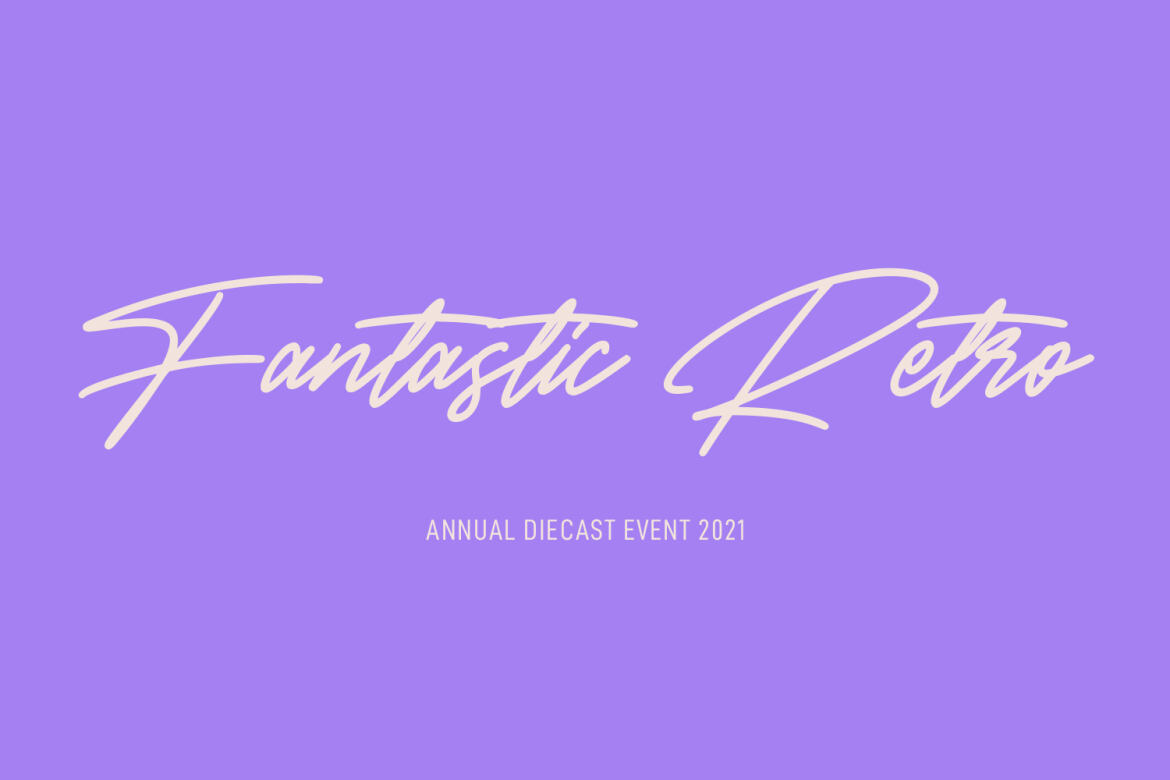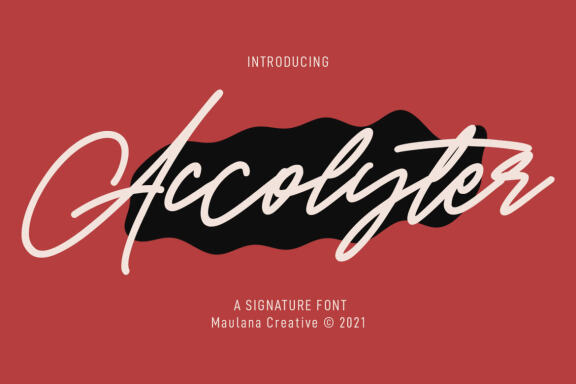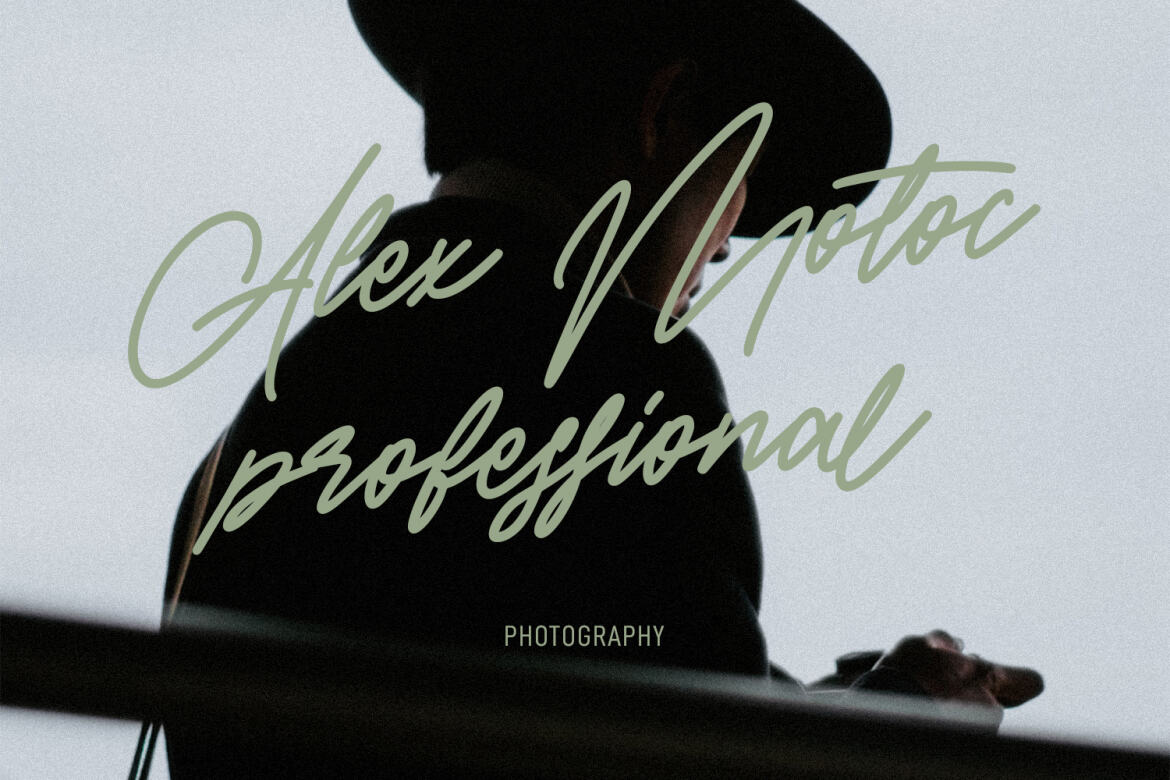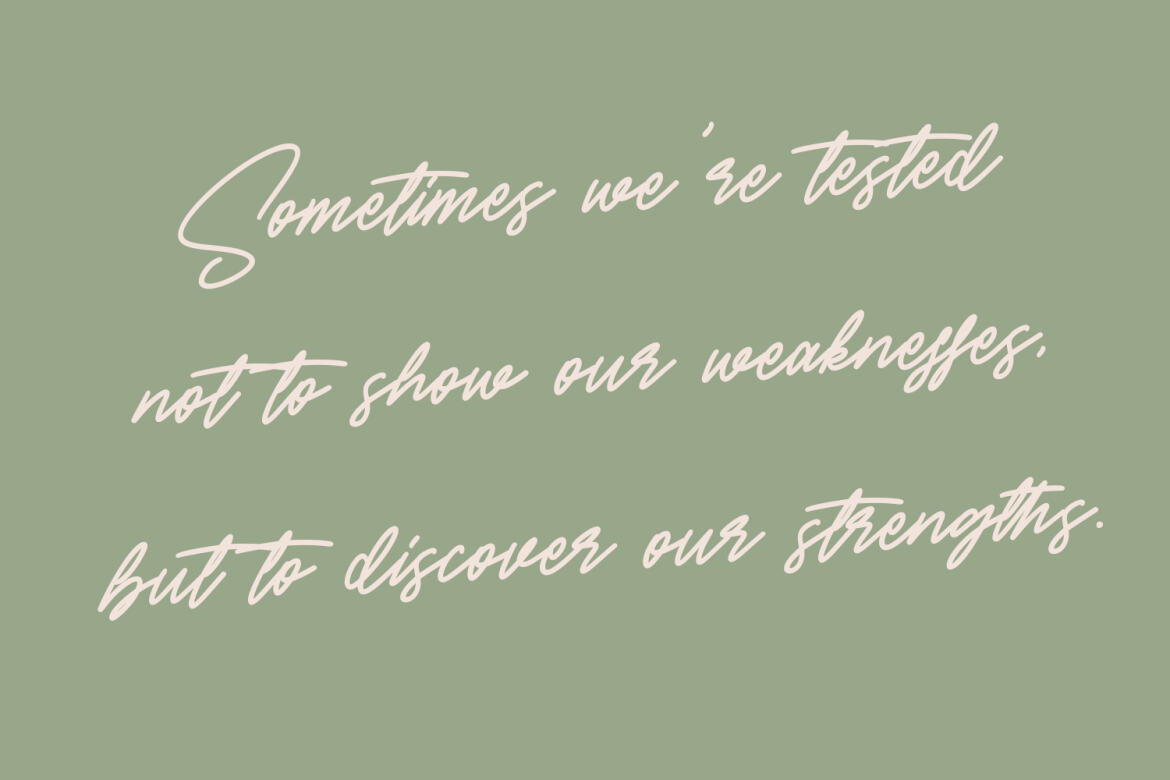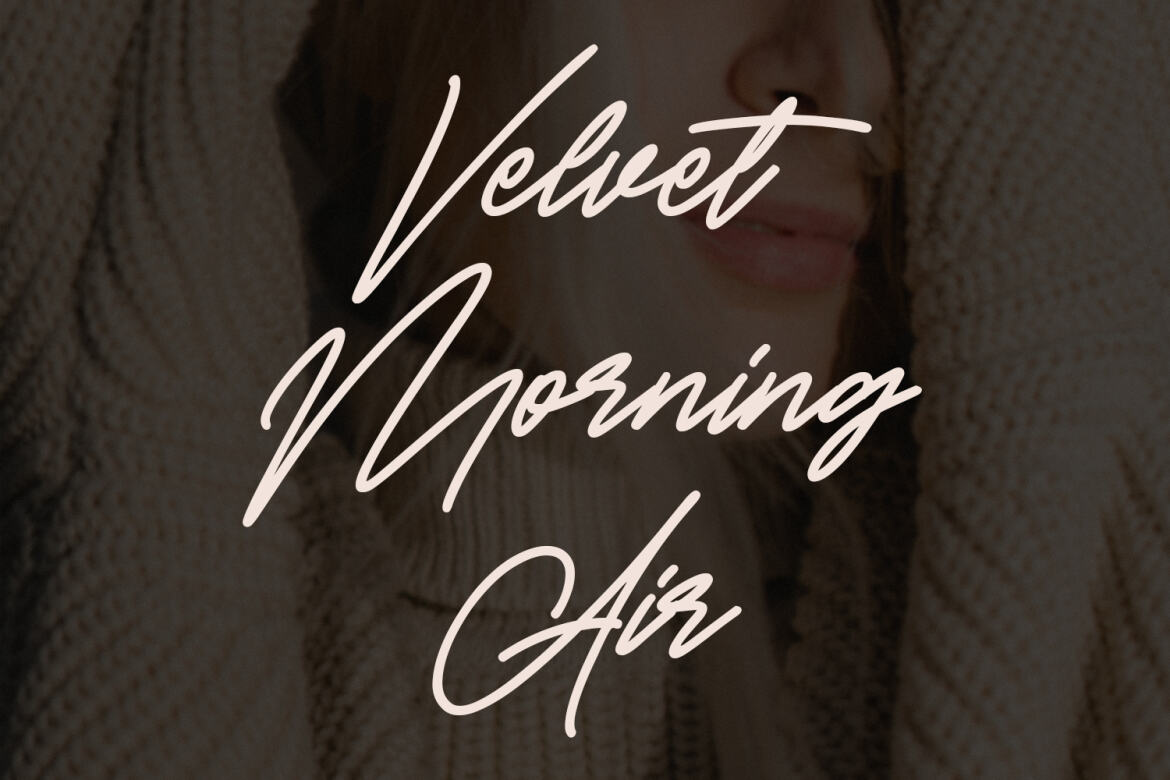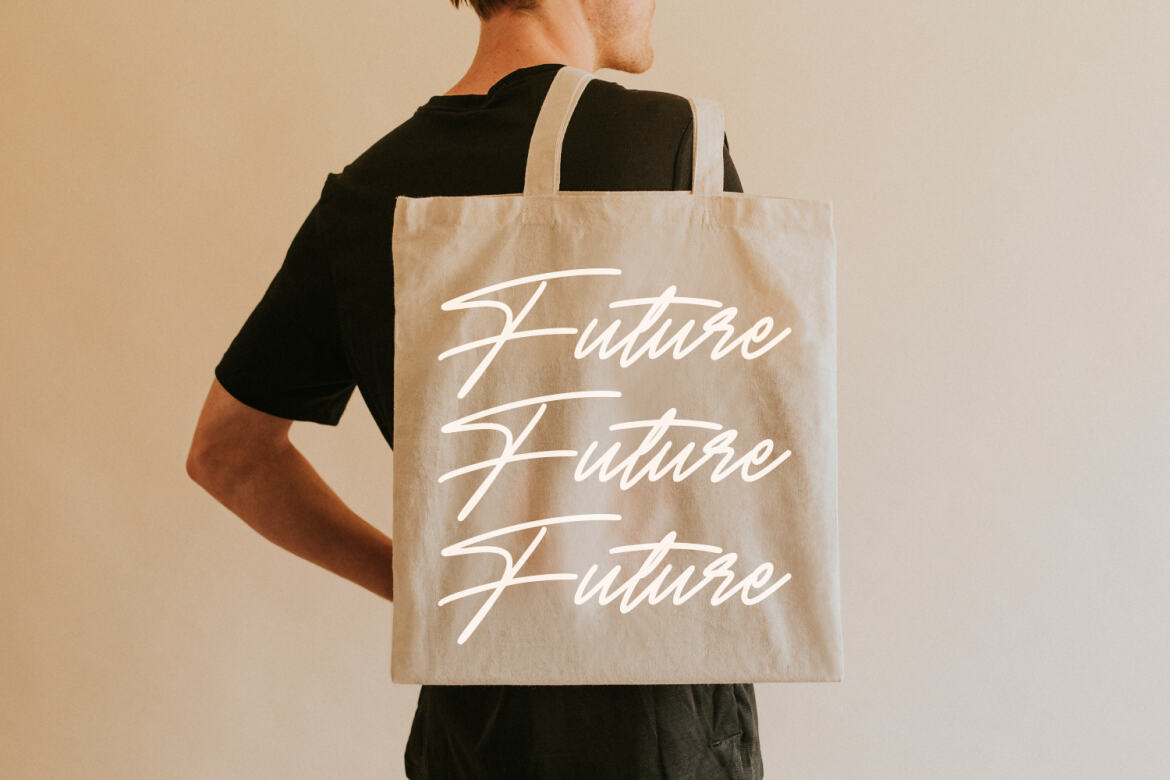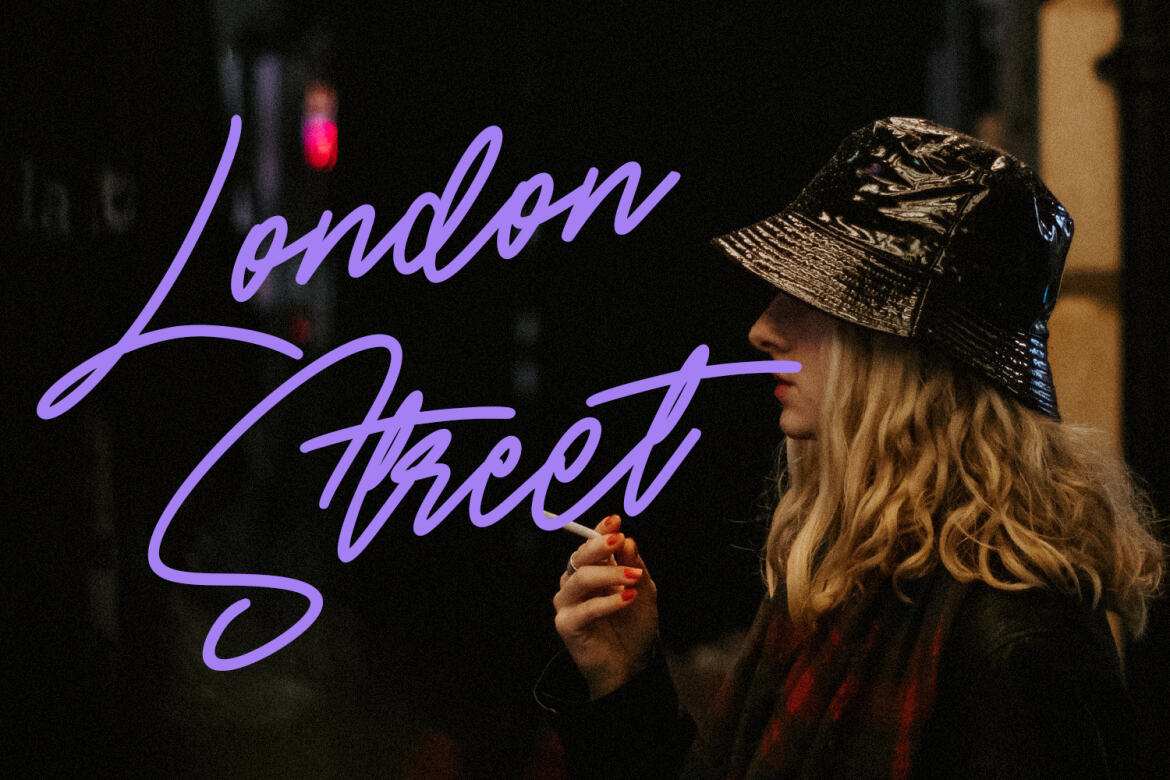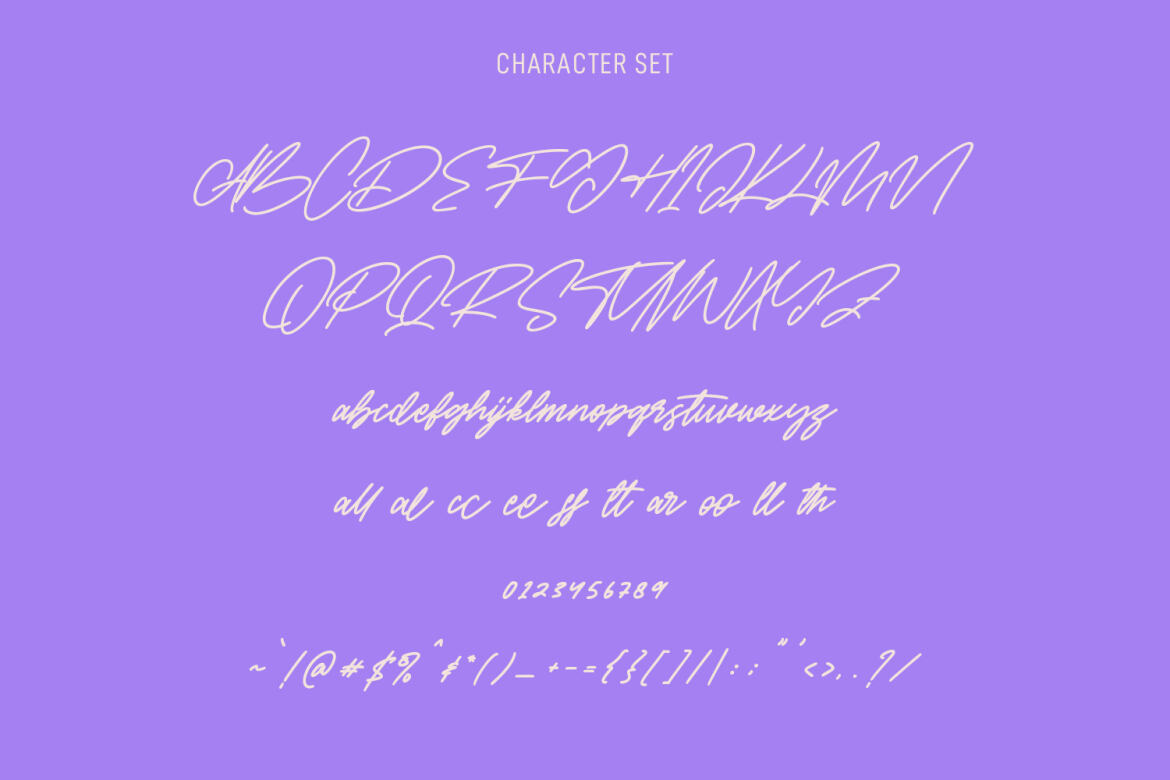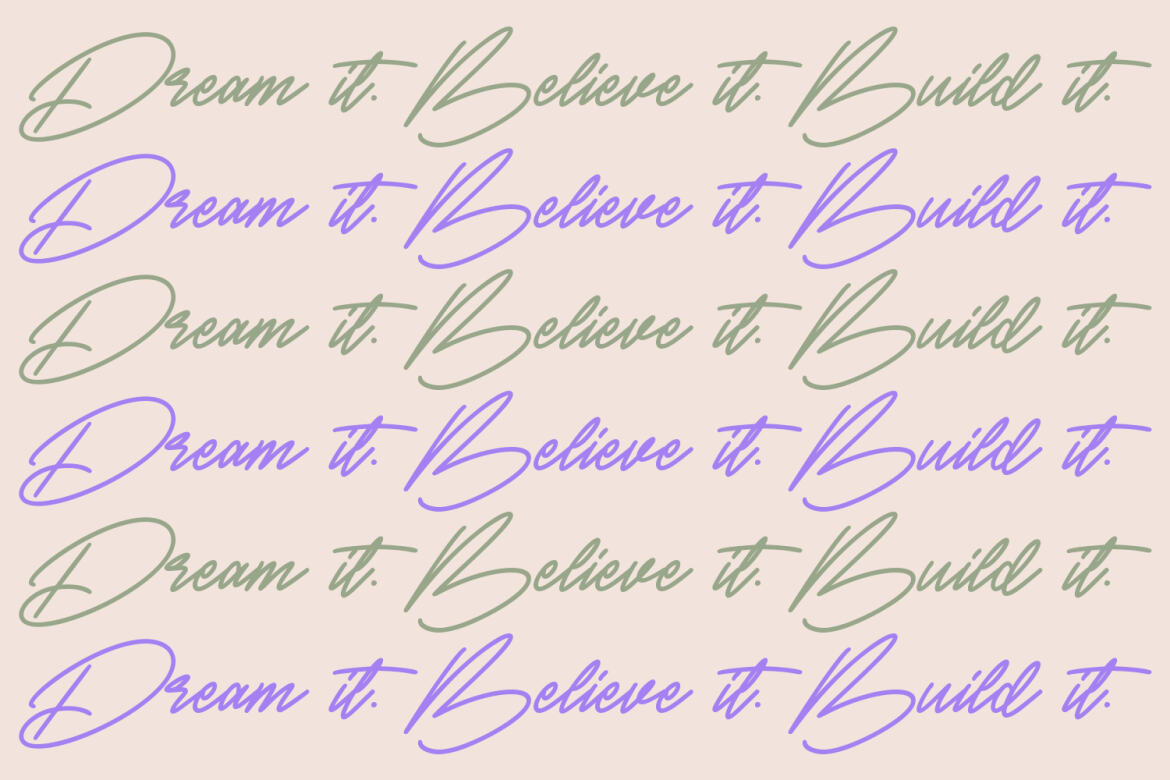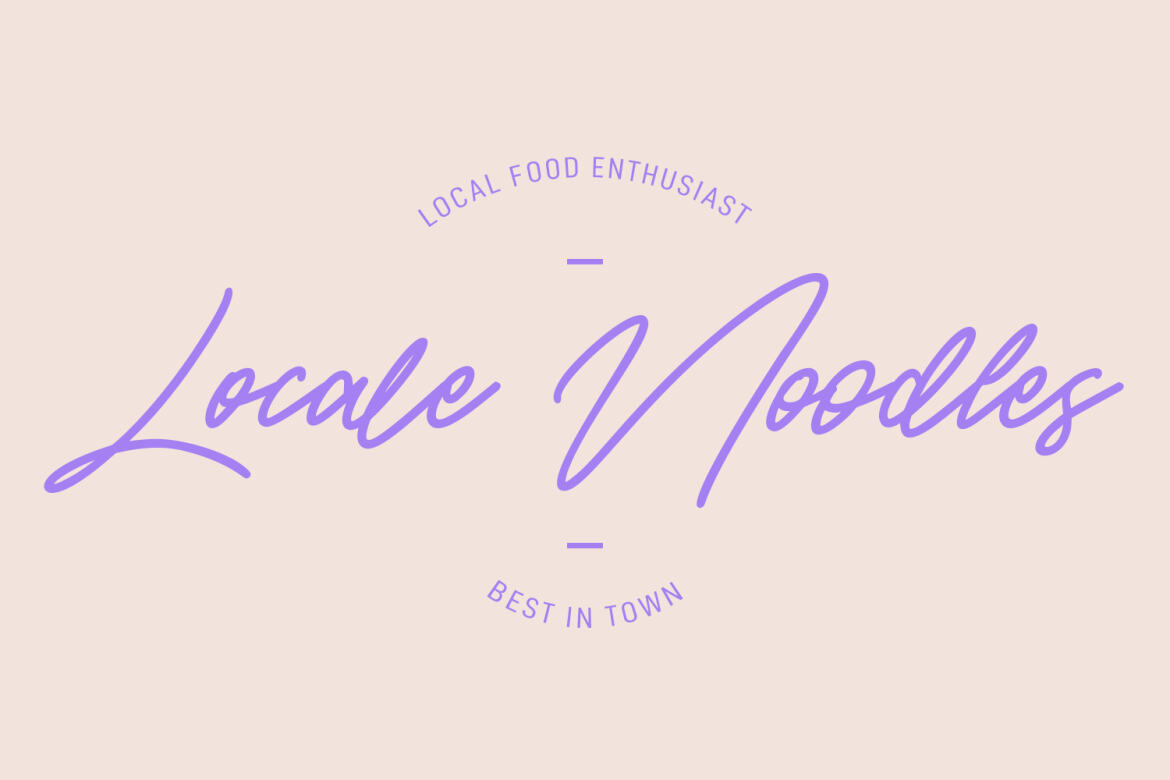
Accolyter Signature - Free Font
Accolyter
Accolyter is a expressive signature script font. With mono-line stroke, slant and fun character with a bit of ligatures. To give you an extra creative work. Accolyter font support multilingual more than 100+ language. This font is good for logo design, Social media, Movie Titles, Books Titles, a short text even a long text letter and good for your secondary text font with sans or serif. Make a stunning work with Accolyter font.